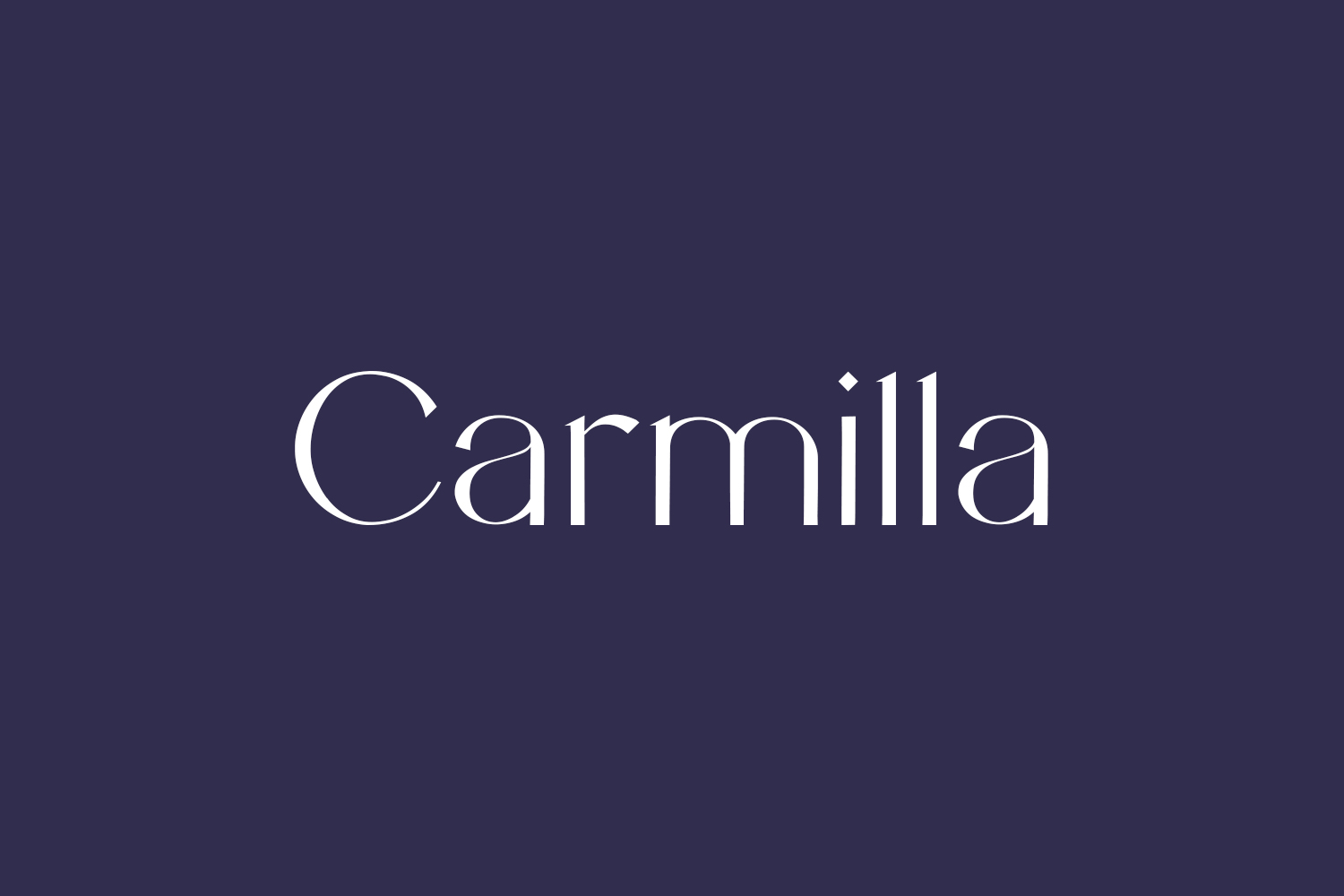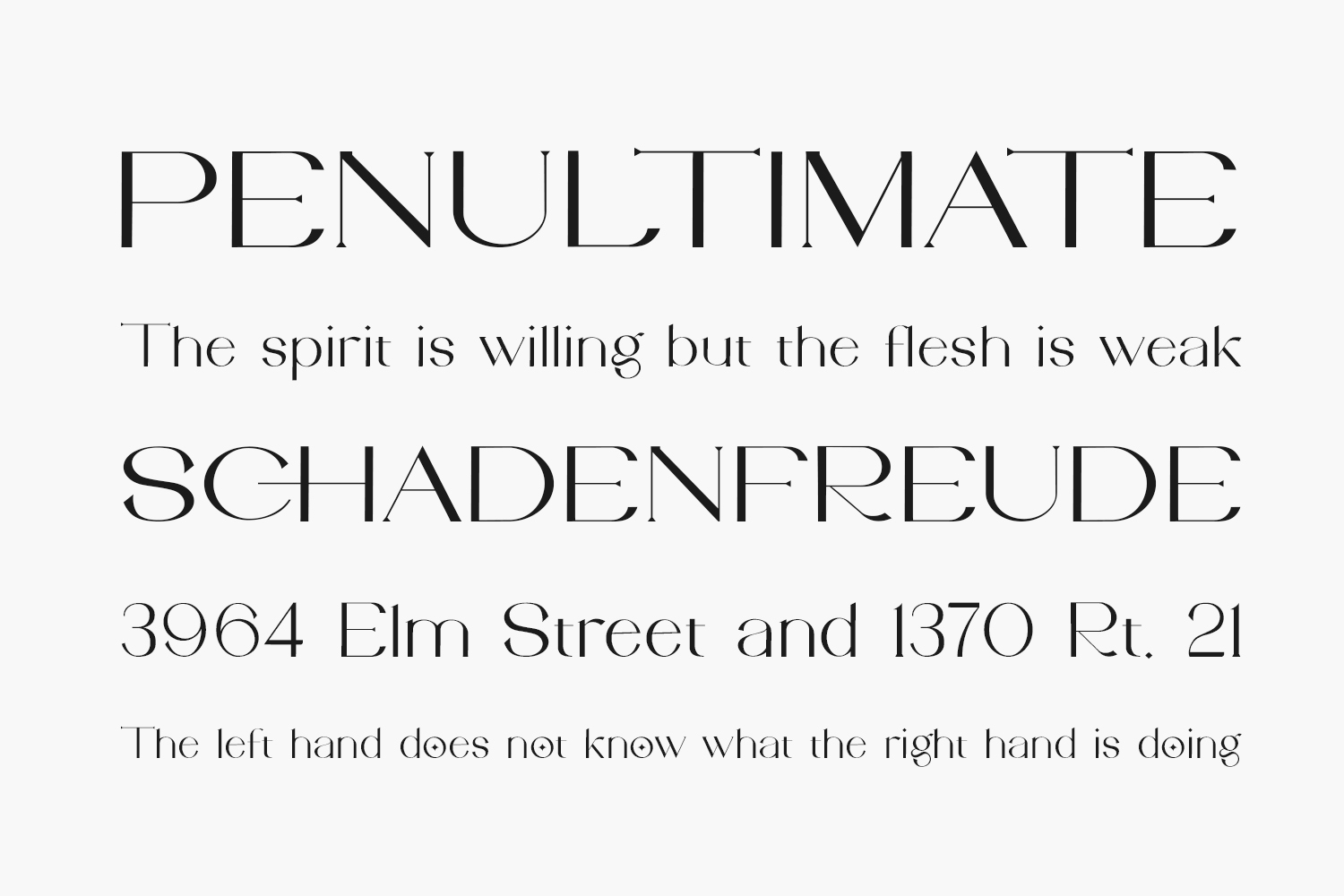
Carmilla Free Font is a cool and simple serif font. No matter the topic, this font will be an incredible asset to your fonts’ library, as it has the potential to elevate any creation. Carmilla Free Font was designed by Ryan Rivaldo Vierra and is free for personal use only. Please purchase the full version for commercial use.
Designed by Ryan Rivaldo Vierra